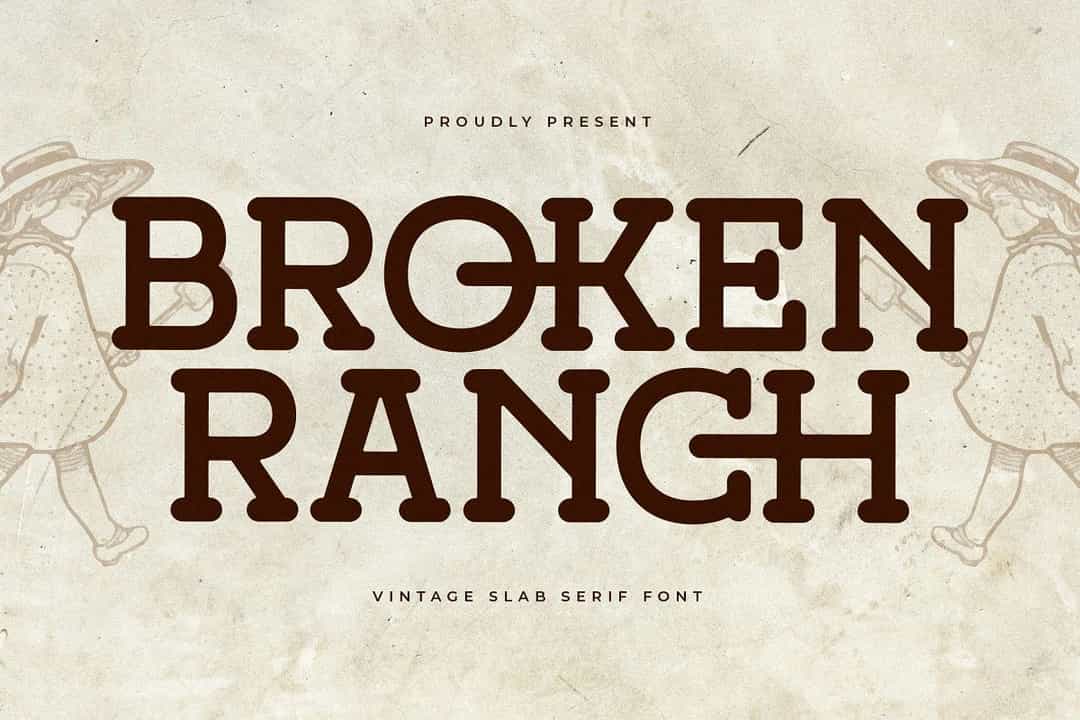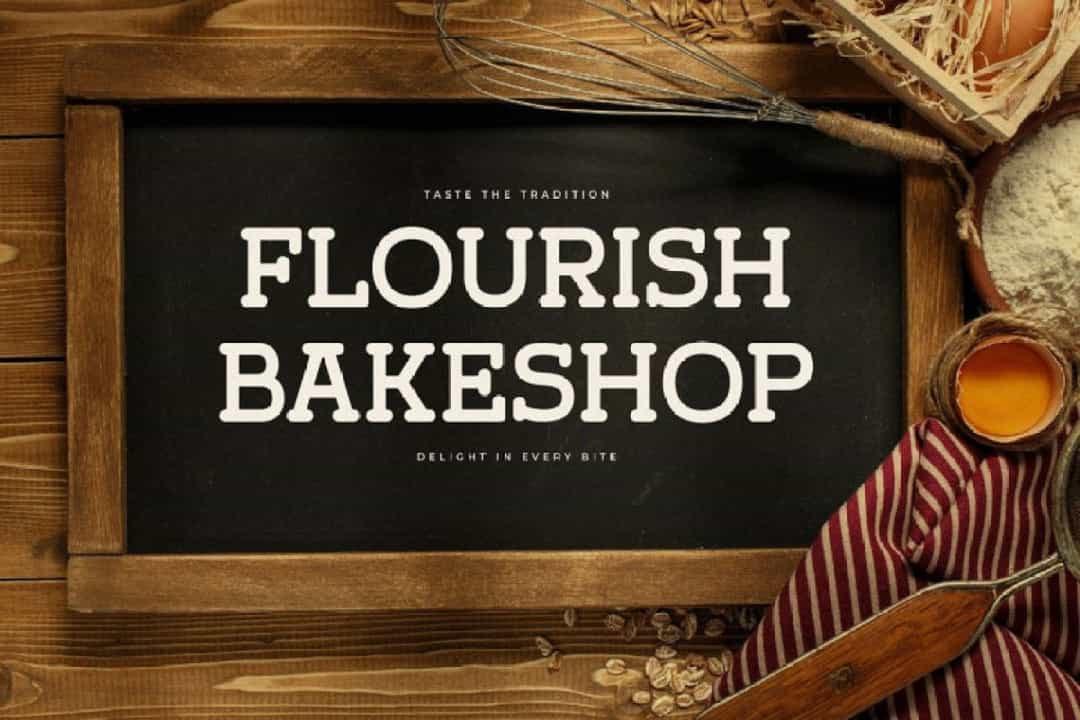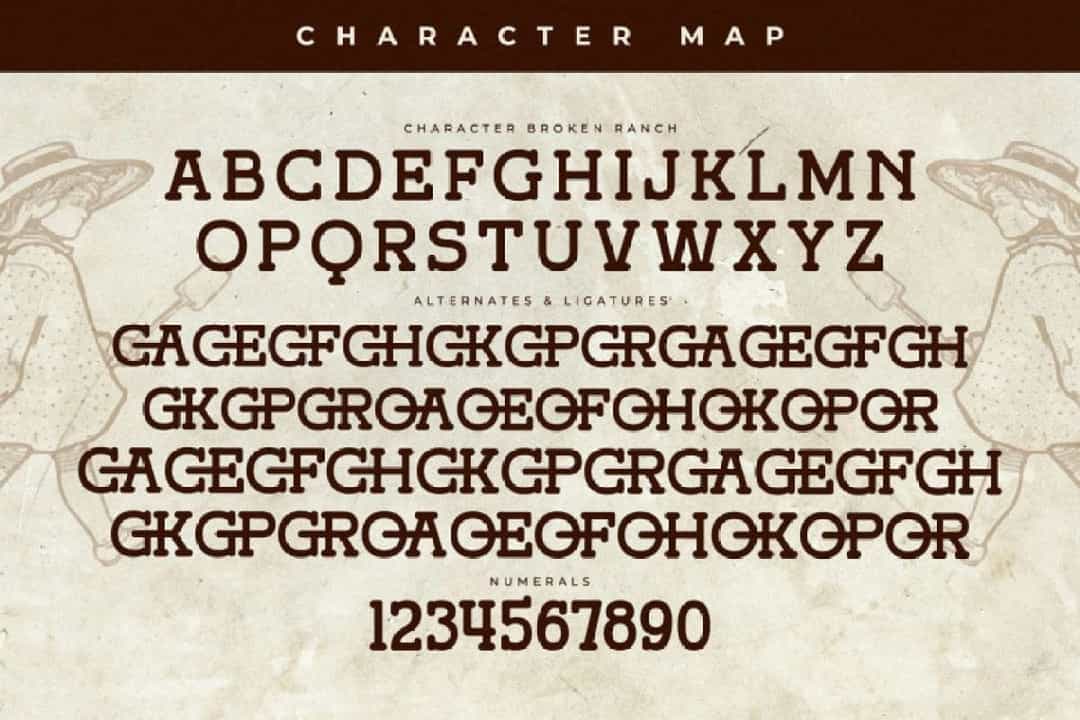
Broken Ranch Font, developed by Storytype, is a modern traditional and modern slab serif font with its distinct style and contemporary appearance. Perfect for logo designs, book or film name creation, fashion brand magazines, clothing letters, quotes and much more, this typeface makes an elegant and luxurious impression in any application.